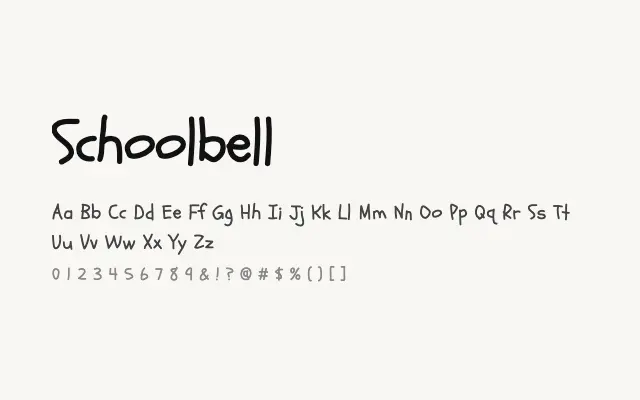
Schoolbell
A casual, childlike handwritten font that evokes classroom chalkboards and informal notes.
Schoolbell is a one-trick novelty face best suited to educational materials, children's content, or informal decorative headings. Its single weight limits versatility, and the deliberately imperfect letterforms quickly become wearing at any length. Best used sparingly for short labels or headings where a hand-drawn feel is the clear intention.
Schoolbell mimics the informal, slightly uneven handwriting of a child or student, with loopy letterforms and a playful baseline rhythm. It is a single-weight novelty face with limited typographic utility.